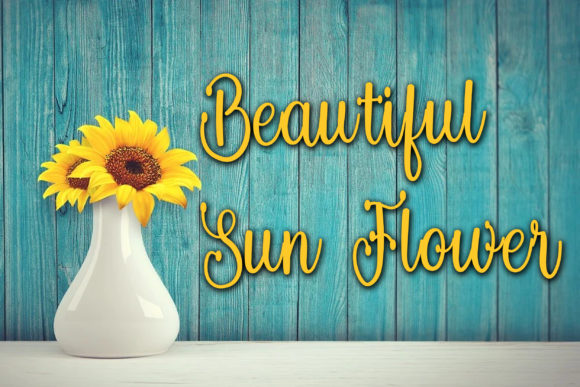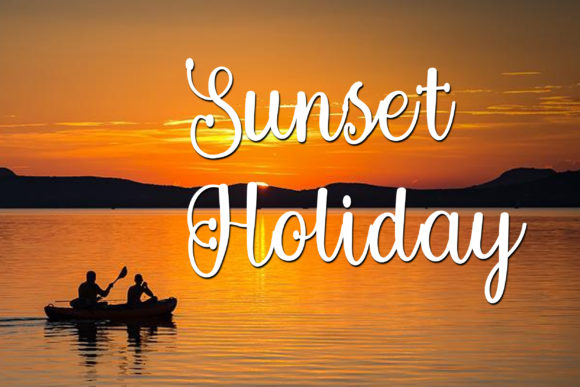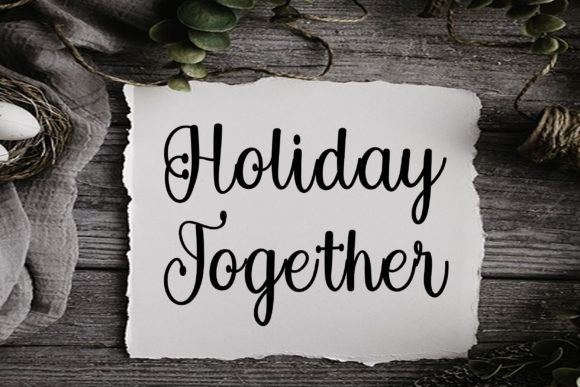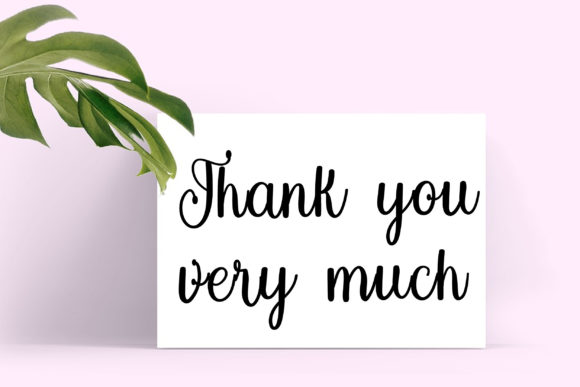
Grown Font
Grown is a fresh and beautiful font crafted for various design purposes, including YouTube banners, cover logo mockups, wedding invitations, ID cards, flyers, and crafts. Integrating this font into your designs not only enhances their visual appeal but also contributes to the progress and development of your business. Grown stands out as a simple yet unique font, offering a versatile and distinctive aesthetic for your creative projects.
The simplicity of Grown adds a modern and understated elegance to your text, making it suitable for a wide range of applications in both digital and print media. Whether you’re creating promotional materials or personal crafts, Grown’s fresh and beautiful design brings a unique character to your work.
Using Grown in your design projects can help establish a strong and memorable brand identity. The font’s simplicity and uniqueness make it a valuable asset for creating a visual presence that resonates with your audience and sets your business apart.
In summary, Grown is more than just a font; it’s a design tool that brings a fresh and beautiful touch to your projects. Whether you’re designing for digital platforms or tangible materials, Grown’s simple and unique characteristics make it an excellent choice for infusing your creations with elegance and individuality. Explore the possibilities and let Grown be the perfect choice for enhancing your designs and contributing to the growth of your business.